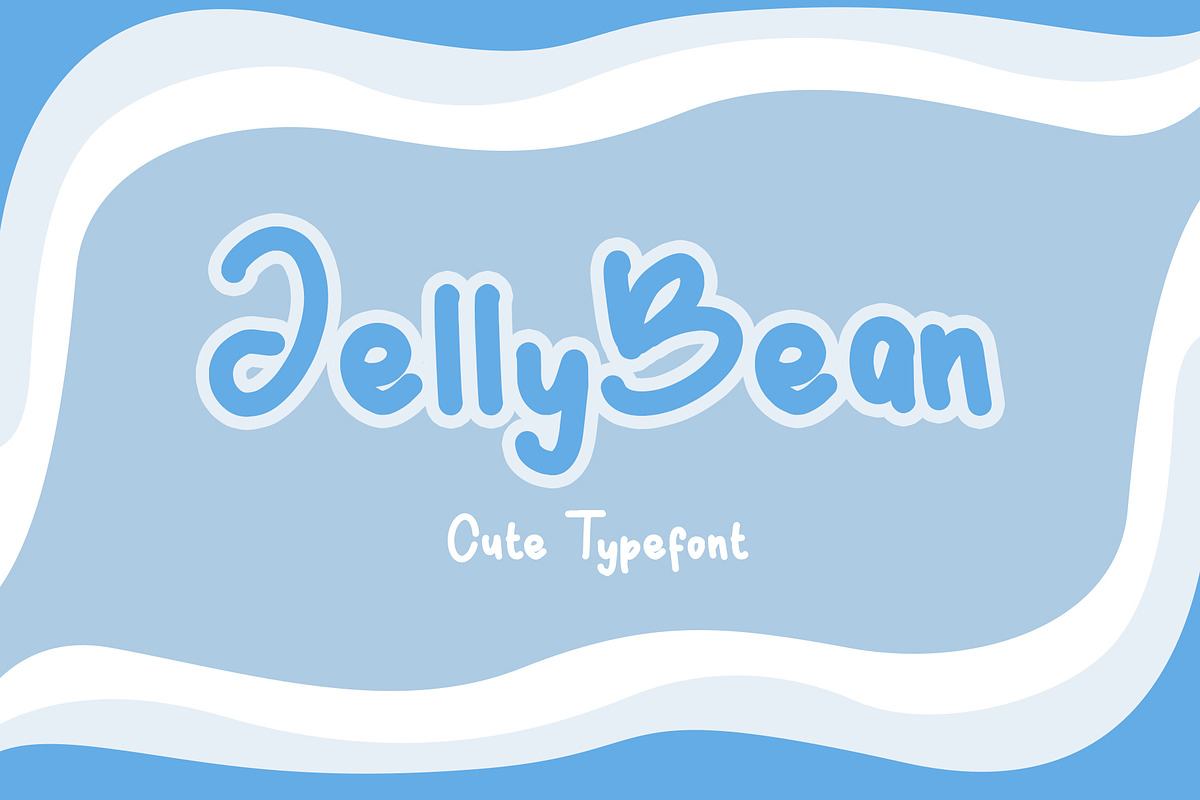
JellyBean || Cute & Playful Fonts Free Download is a delightful typeface full of charm, whimsy, and color. Designed for projects that need a cheerful and youthful touch, this font is perfect for kids’ books, birthday invitations, toy packaging, and social media graphics that radiate fun and friendliness.
Its bubbly letterforms and smooth curves bring a sense of joy and positivity to every design. Whether you're crafting classroom materials, cartoon logos, or creative DIY projects, JellyBean makes everything feel a little more magical.
Loved by designers for its approachable and happy vibe, this font is a go-to choice for playful branding. Ready to add some sweetness to your work? Grab JellyBean || Cute & Playful Fonts Free Download today and let your creativity bounce with personality!